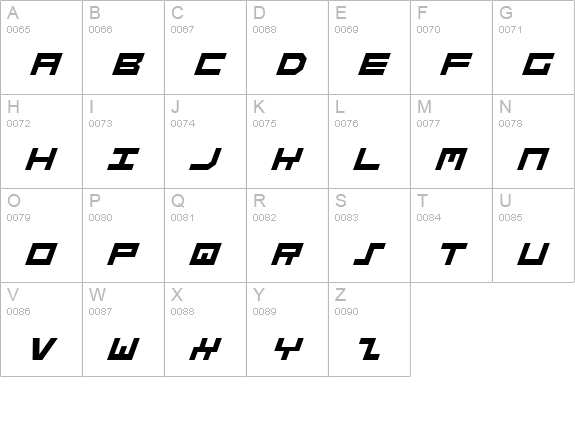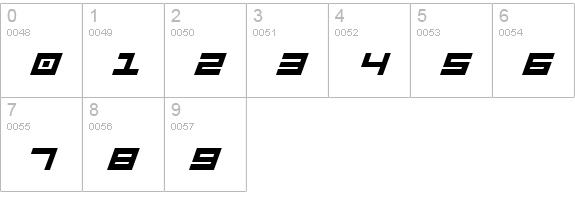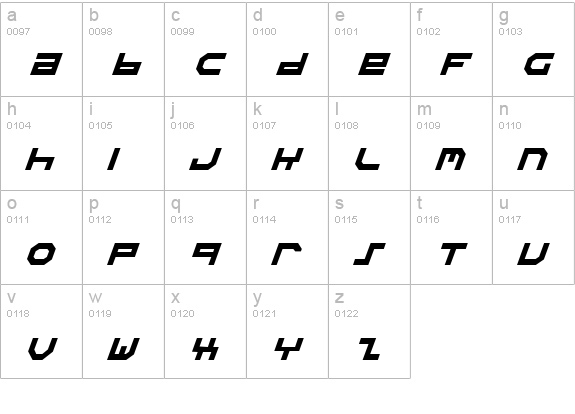
Stuntman Italic is a distinctive, italic variant in the Stuntman typeface family \xE2\x80\x94 well suited to design and typography projects.
Stuntman Italic font is a dynamic and eye-catching typeface designed for those who want to add a touch of excitement and adventure to their projects. With its bold and slanted appearance, this font exudes a sense of daring and boldness, making it perfect for headings, titles, and promotional materials. What's even more thrilling is that Stuntman Italic font is available for free download at FontsMarket.com. Whether you're working on a poster for a high-octane event or looking to inject some energy into your designs, this font is sure to make a statement. Embrace the thrill of the unexpected with Stuntman Italic font and let your creativity take center stage.